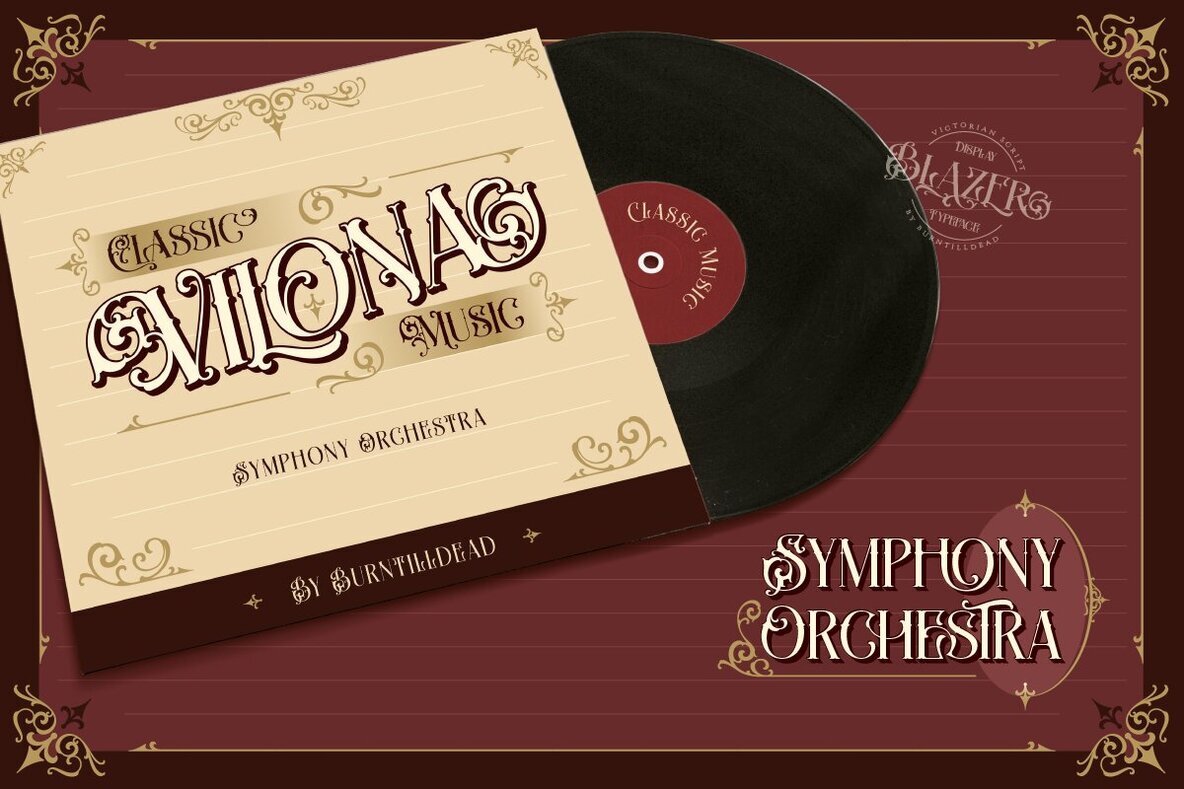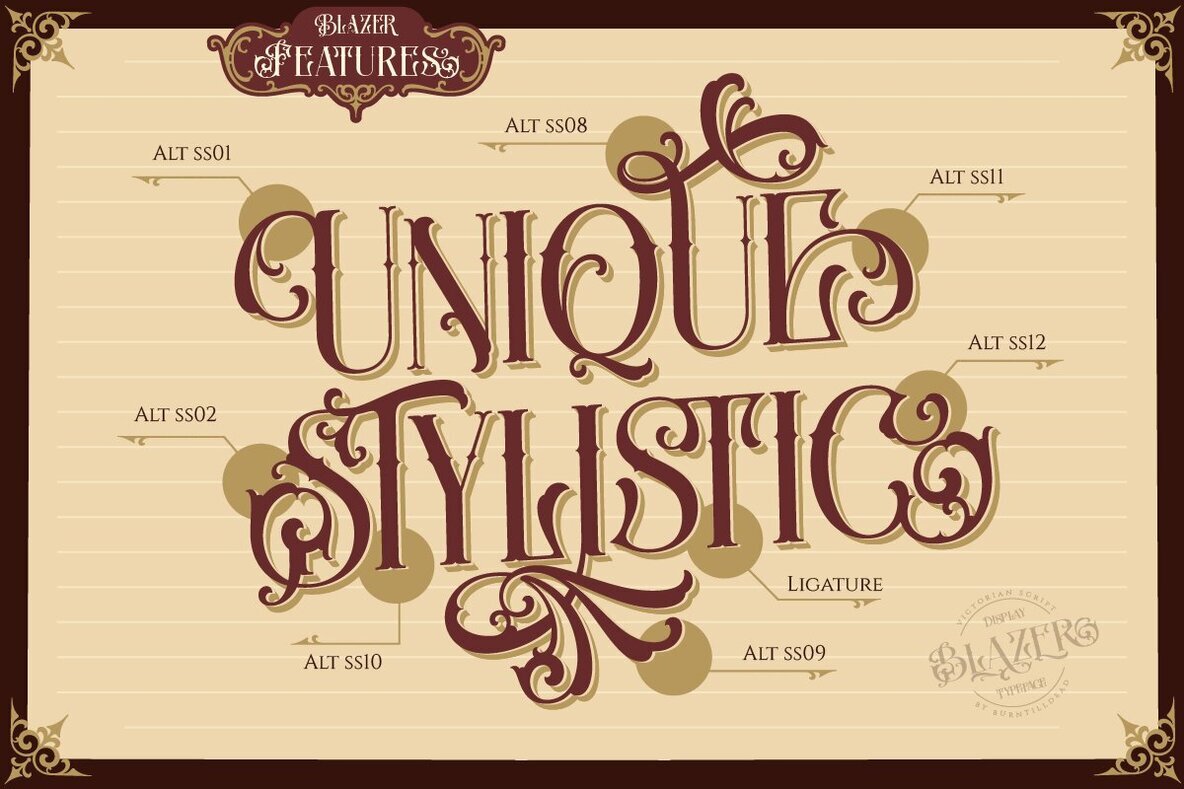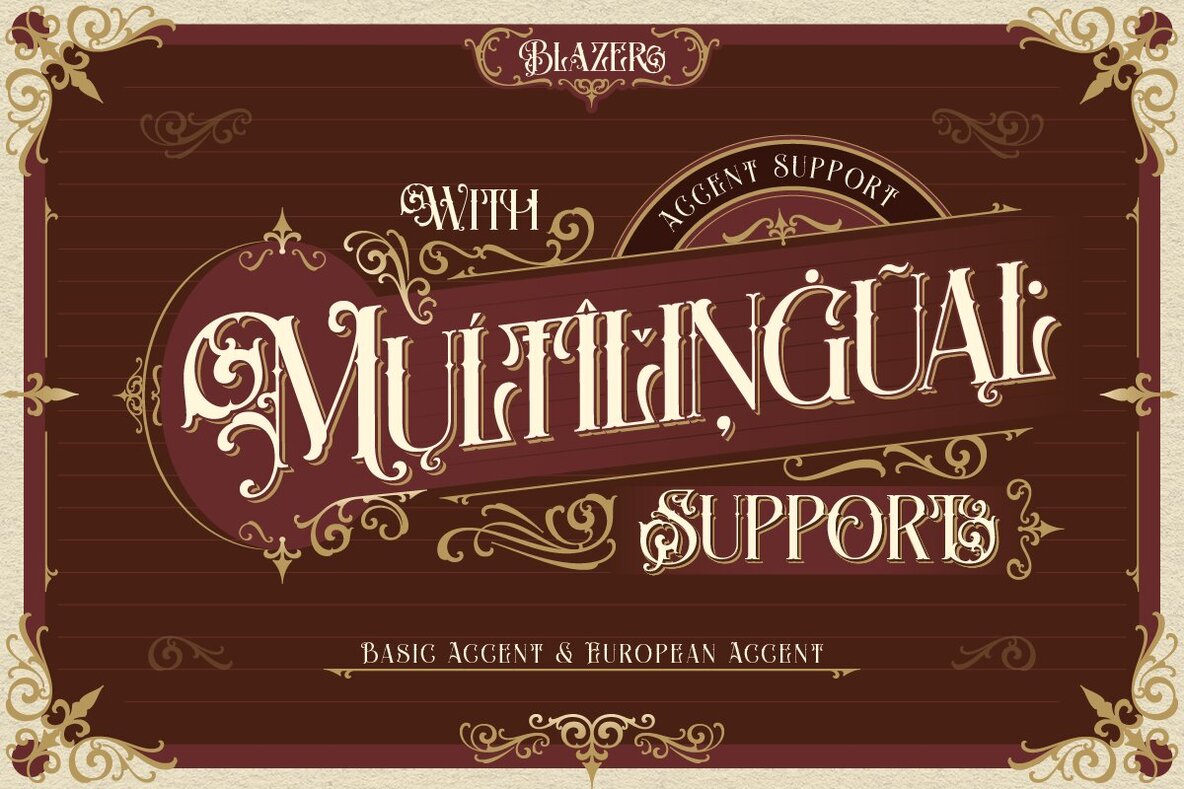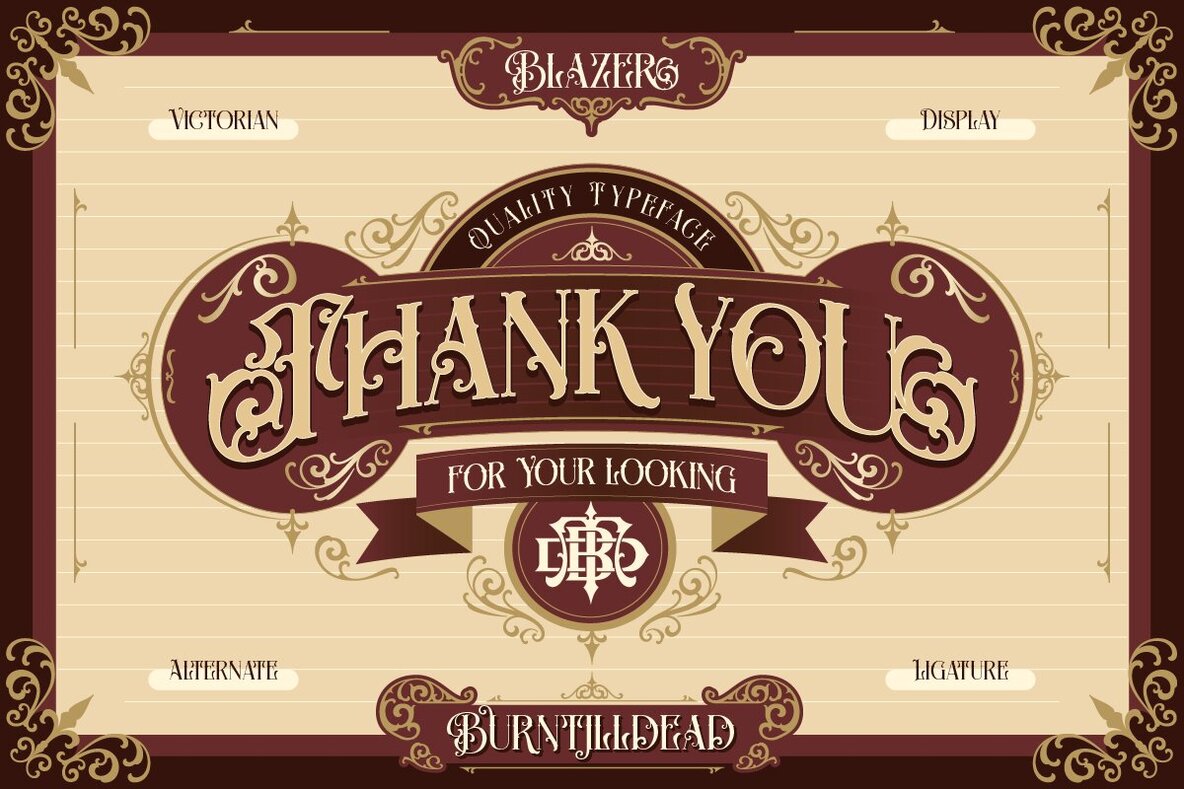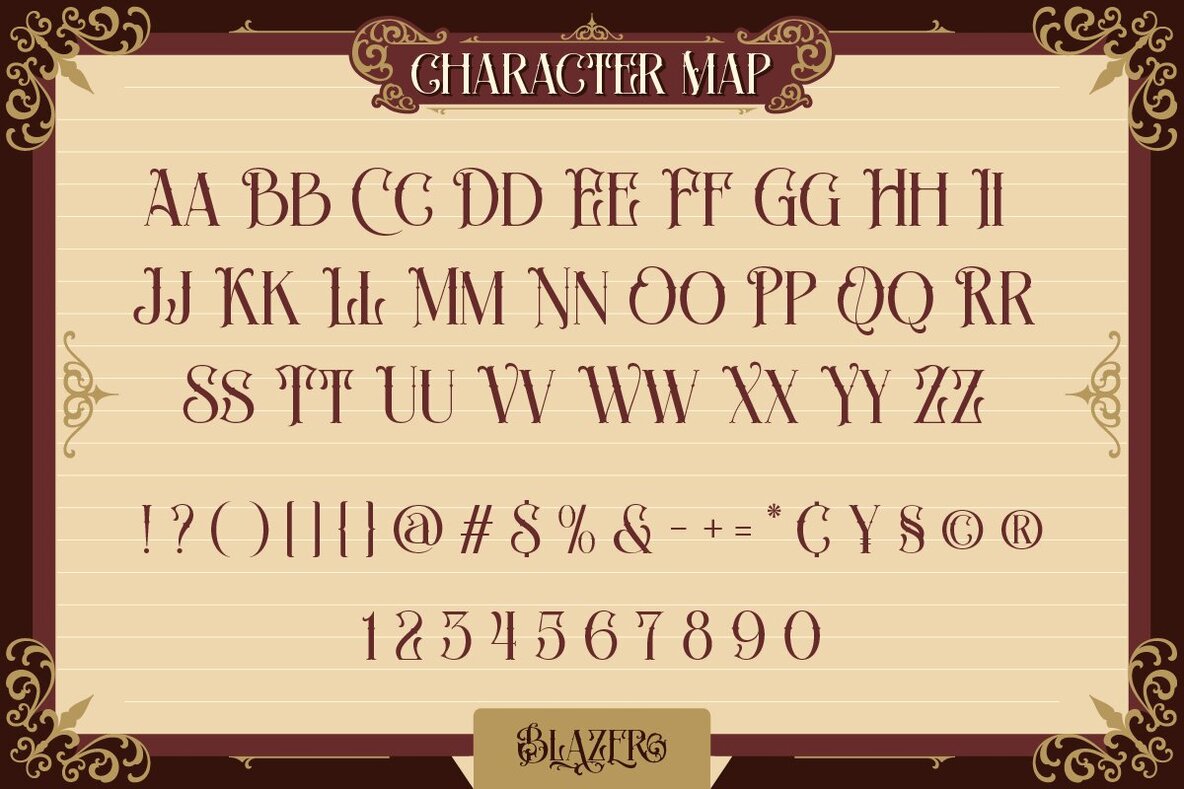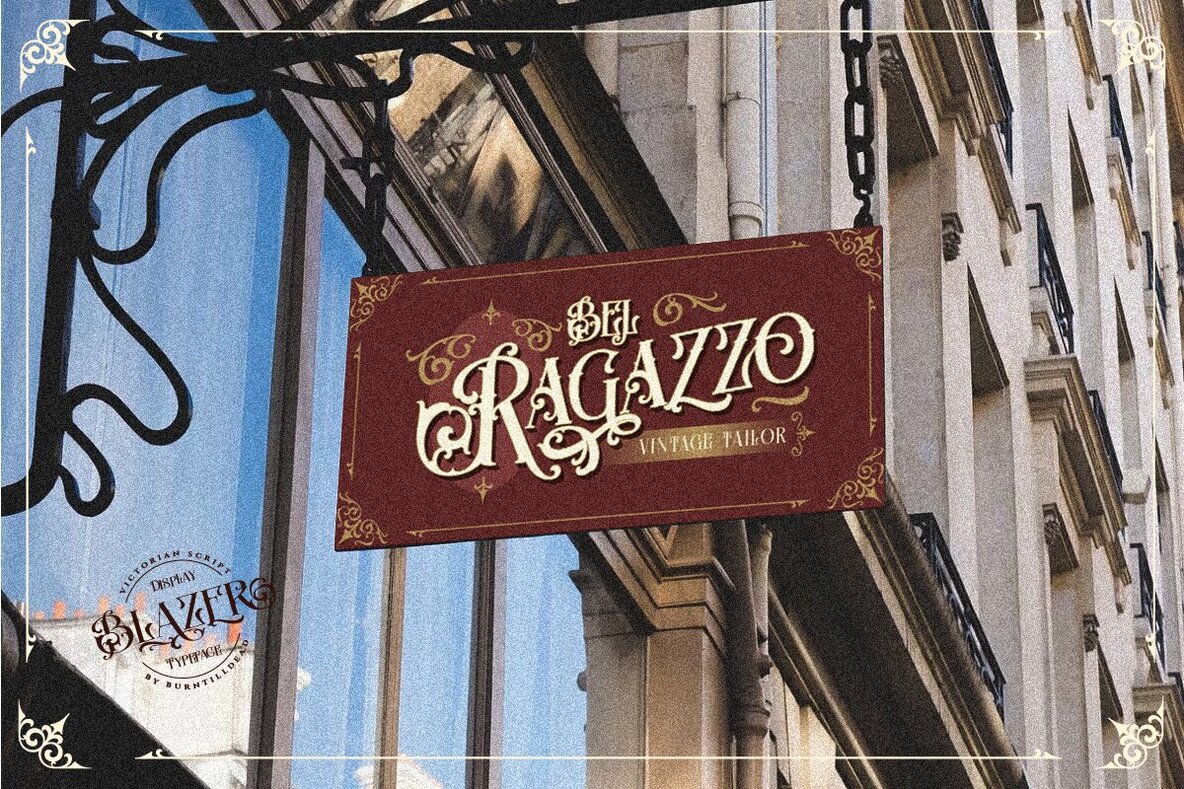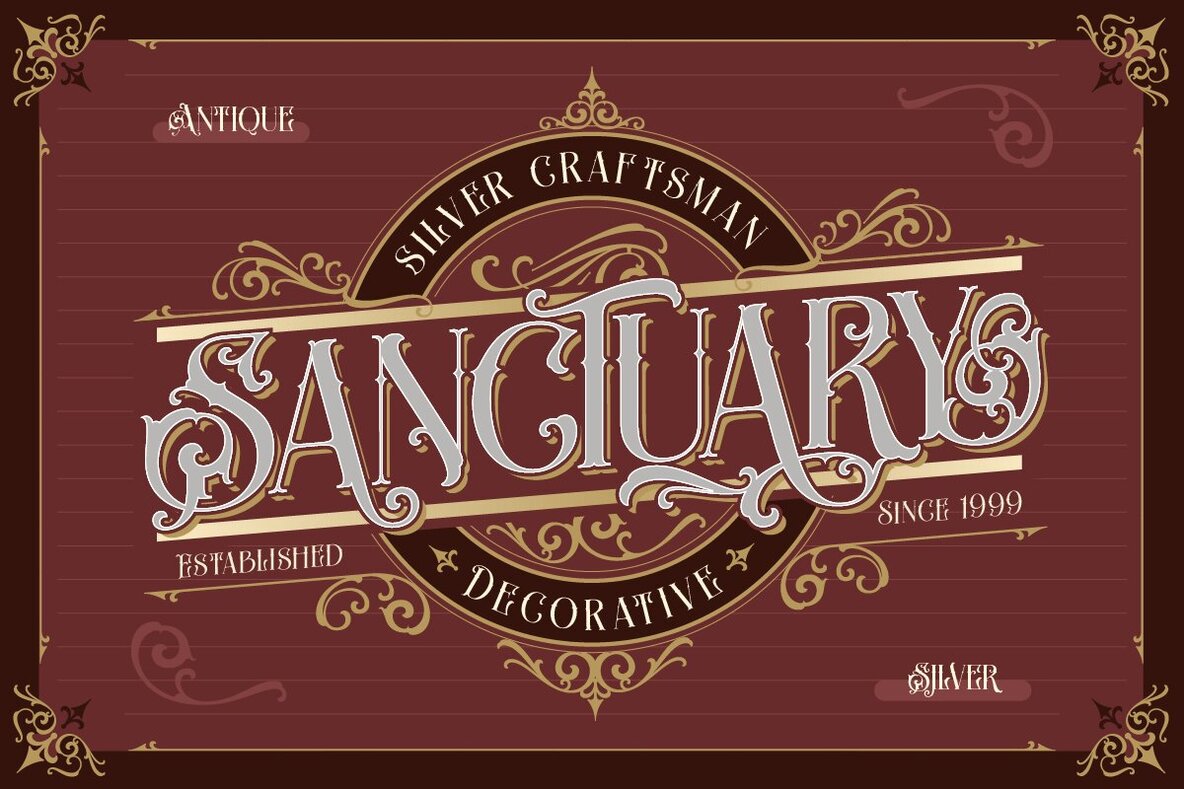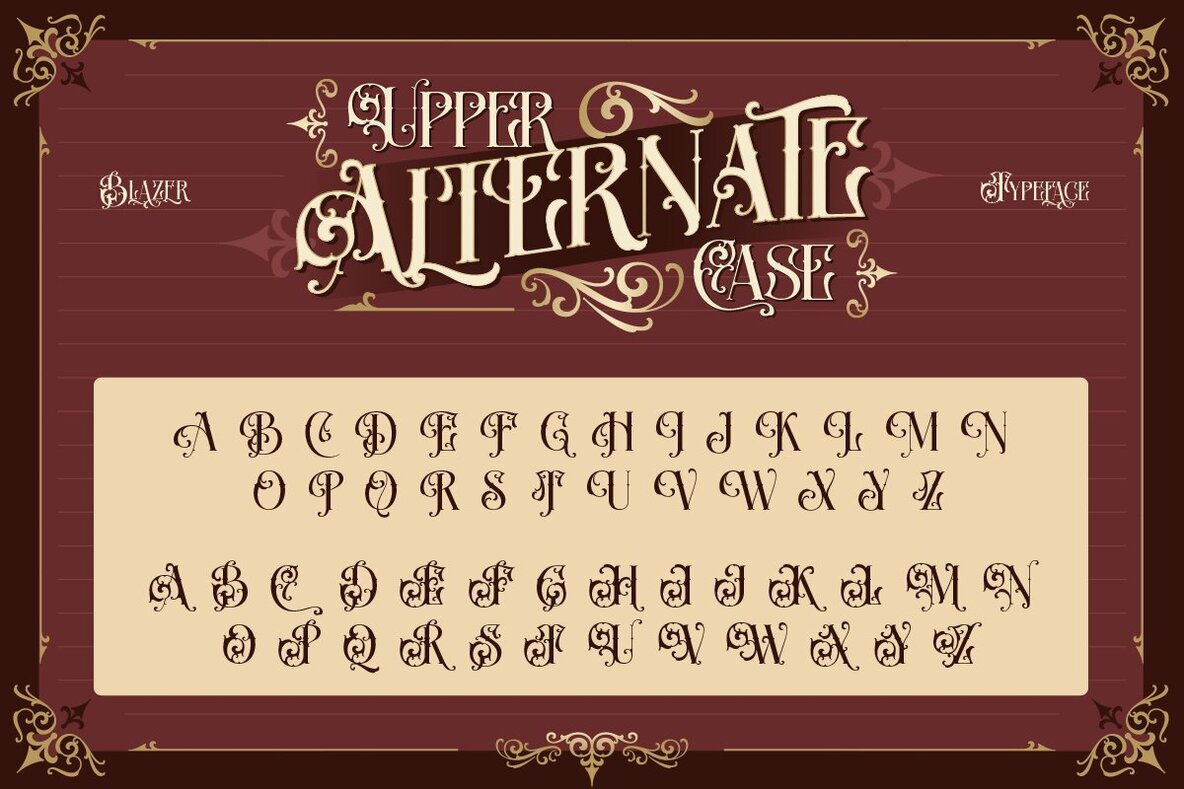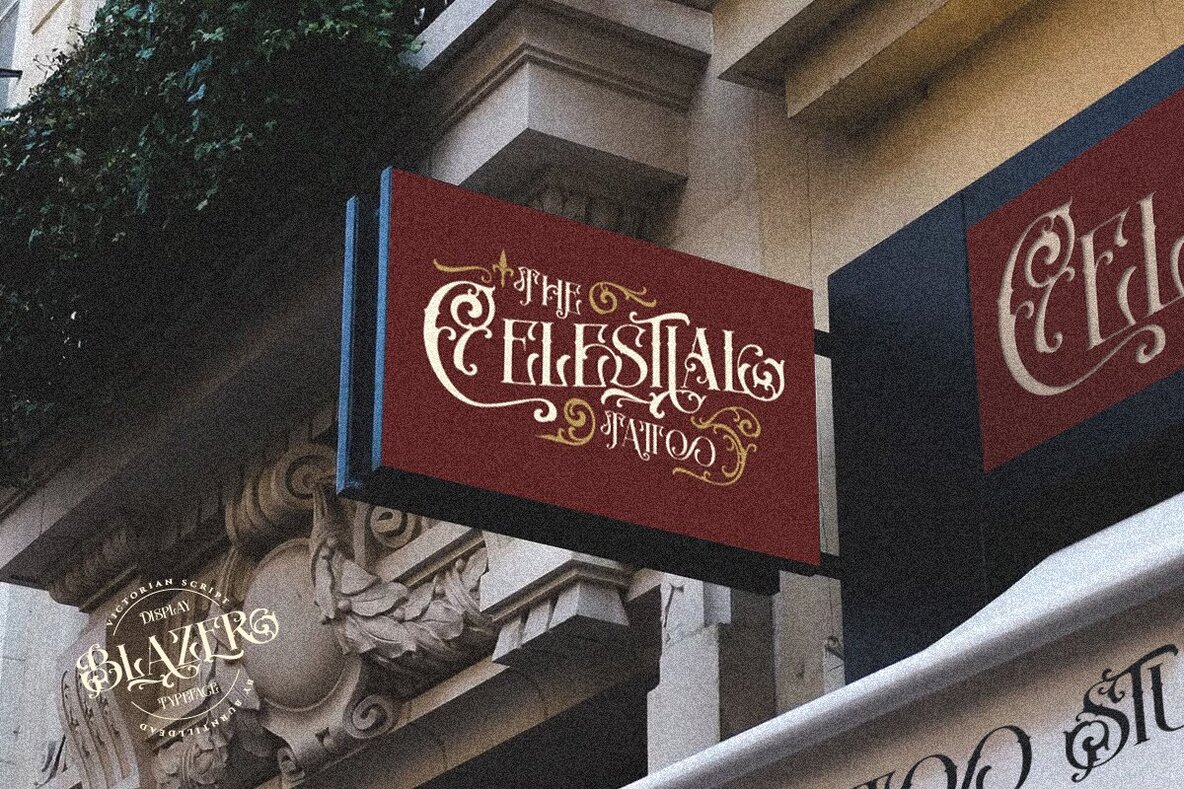
Blazer Font
Step back into the elegance of the Victorian era with Blazer, a typeface that brings a vintage and classy touch to your design projects. This font offers a unique style that effortlessly evokes the aesthetics of the 1800s. Included in this package is a free ornament set, perfect for adding a classical, vintage, and Victorian look to your creations.Blazer: Victorian Style Typeface with Classical Charm